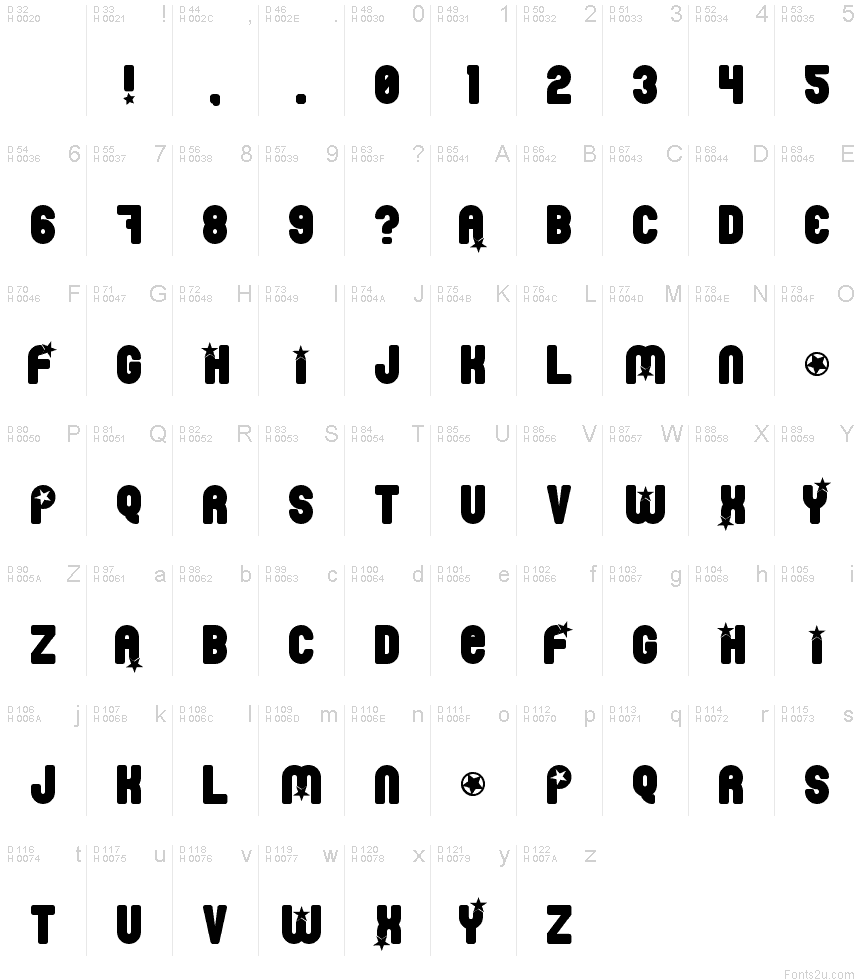
Pornstar
Pornstar, by Fontosaurus Text, is a free groovy display font with chunky retro letters and star cutouts that push it straight into novelty 70s territory. The rounded, heavy shapes keep the wordmark bold and simple, while the repeated star motif gives the font its playful, poster-minded hook.
It fits club flyers, party invites, themed packaging, cheeky T-shirts, and cover lines where a free font needs a loud gimmick baked right into the letters. Use it for short titles, logo-style headlines, or monograms, because the stars do most of the talking and the broad curves keep the look easy and direct.